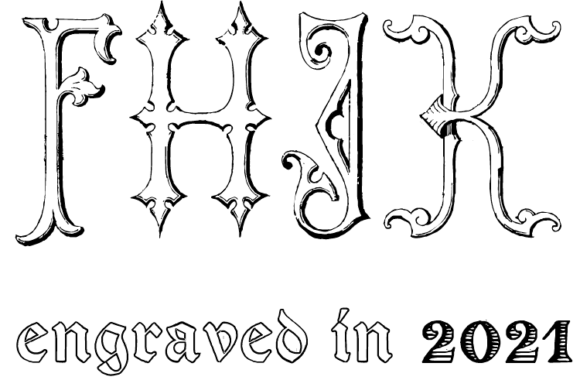
Victorian Alphabets Four Font
Victorian Alphabets Four is an elegant and incredibly elegant display font. Whatever the topic, this font will be a wonderful asset to your font library, as it has the potential to enhance any creation.